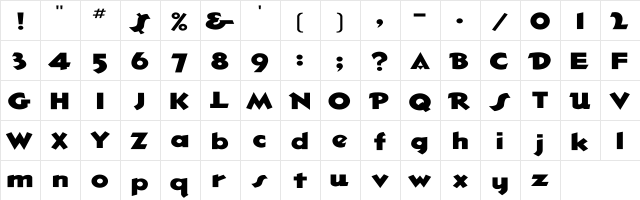
Hotshot Wd Regular
Design Context for Hotshot Wd Typeface
Hotshot Wd is a composed and adaptable typeface that performs quietly and consistently across a wide range of design contexts.